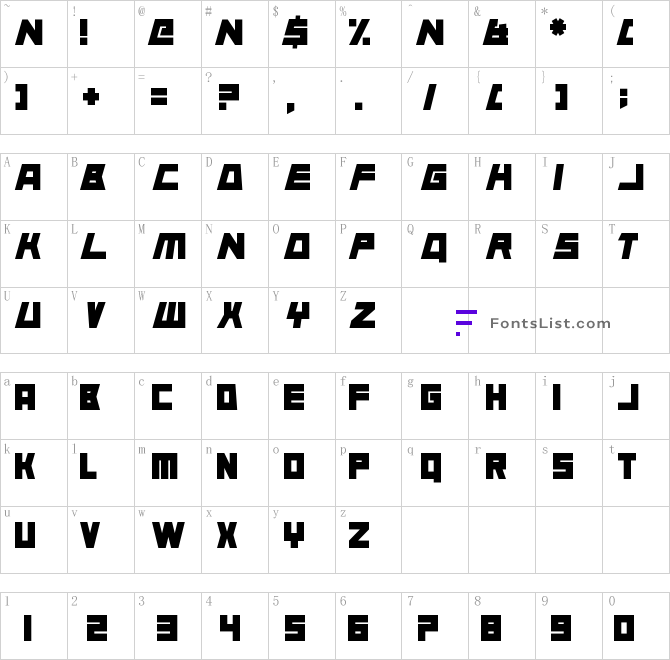
- Font Name:Animal Silence
Animal-Silence.otf is a very beautiful artistic font, Animal-Silence.otf is widely used in the design and printing of various books and pictures,Animal-Silence.otf has a strong visual impact,Animal-Silence.otf is a commonly used font in newspapers, magazines and books, and is used in posters, e-commerce Poster design, store design, logo design, font design and other fields.Animal-Silence.